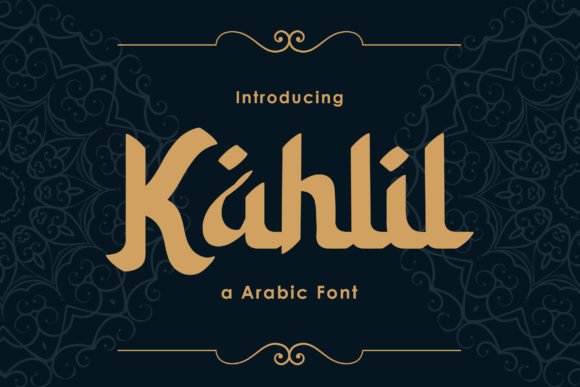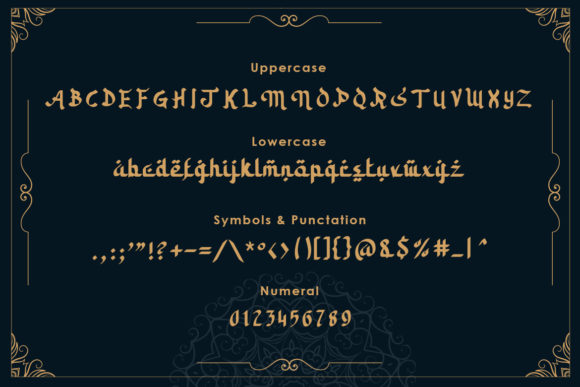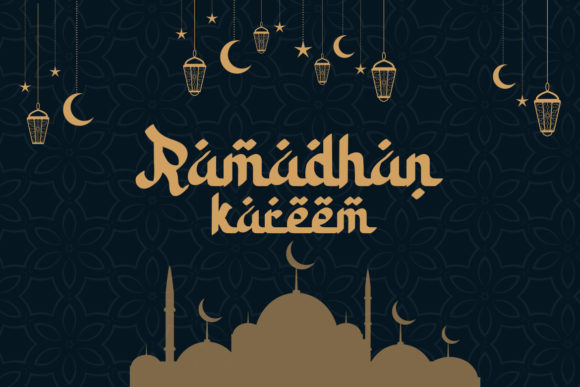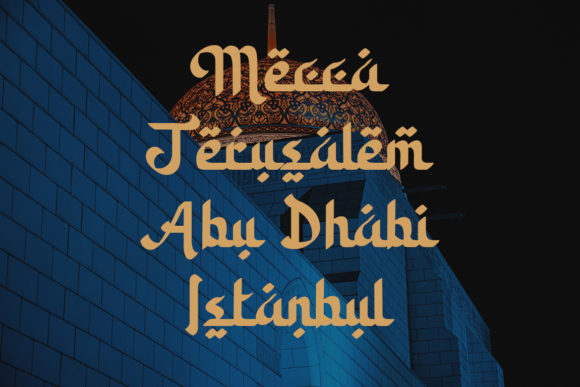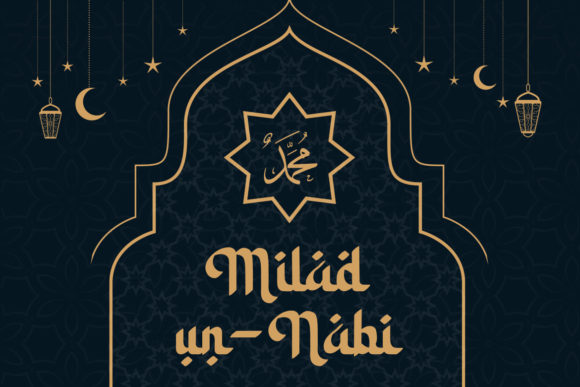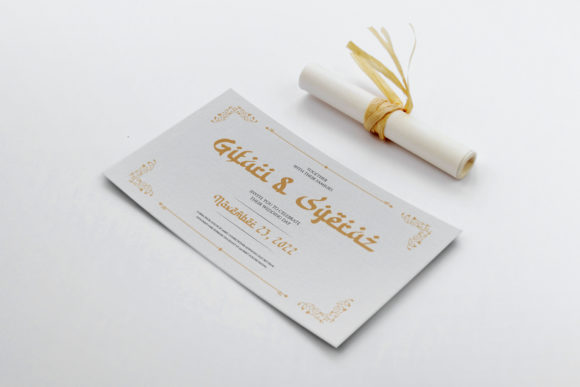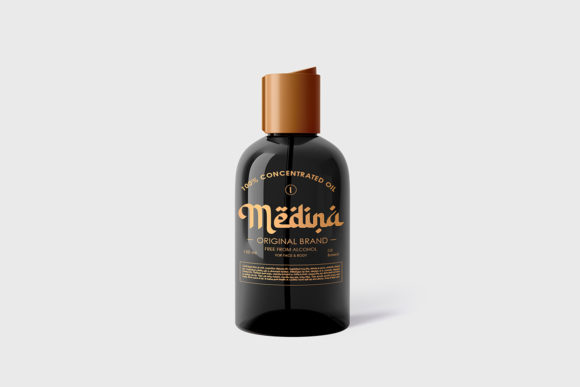
Discover the Magic of Kahlil Font: Elevate Your Designs
Have you ever been brainstorming a new project, surrounded by scraps of paper, coffee cups, and scribbled notes, only to stumble upon that one spark of inspiration that sets everything off? For designers, those moments are what make the creative process so thrilling. For me, it was the day I discovered Kahlil Font – a unique display font with a captivating Middle-Eastern feel.
Kahlil Font is more than just a font; it’s a key to unlocking the perfect visual identity for your brand. Its clean lines and quirky charm make it the perfect fit for logos, branding, social media, and crafty DIY projects. With Kahlil Font, you can add a touch of personality to your designs and make them truly stand out.
Kahlil Font Key Features
- Font Family: Kahlil is a modern script font designed to evoke a sense of elegance and sophistication.
- Font Size: Kahlil is available in 6 font sizes, ranging from 24 to 72 points, making it suitable for a variety of design applications.
- Resolution: Optimized for high-resolution displays, Kahlil is perfect for use in digital media, including web design, social media, and mobile apps.
- Unique Characteristics: Kahlil features a unique blend of traditional and modern calligraphy elements, making it an ideal choice for designers seeking a distinctive look.
- Language Support: Kahlil supports a wide range of languages, including Latin, Cyrillic, and Greek scripts, making it a versatile font for global design projects.
Kahlil Font Review
I recently had the chance to work with the Kahlil font, and I must say, it’s a beautiful addition to any design project. Here’s my honest take on this elegant font.
- Unique Character: The Kahlil font has a distinct, cursive feel that sets it apart from more traditional fonts.
- Legibility: Despite its flowing lines, the font is surprisingly easy to read, making it perfect for body text or headings.
- Flexibility: Kahlil comes in a range of weights and styles, allowing designers to choose the perfect fit for their project.
- Limited Versatility: While Kahlil is beautiful, it may not be the best choice for projects requiring a more formal or technical tone.
- Not Ideal for Small Text: Due to its flowing lines, Kahlil can be difficult to read at very small sizes.
Overall, I’m impressed with the Kahlil font. Its unique character and flexibility make it a great addition to any design project, but it’s not a one-size-fits-all solution. If you’re looking for a beautiful, elegant font for a specific type of project, Kahlil is definitely worth considering.